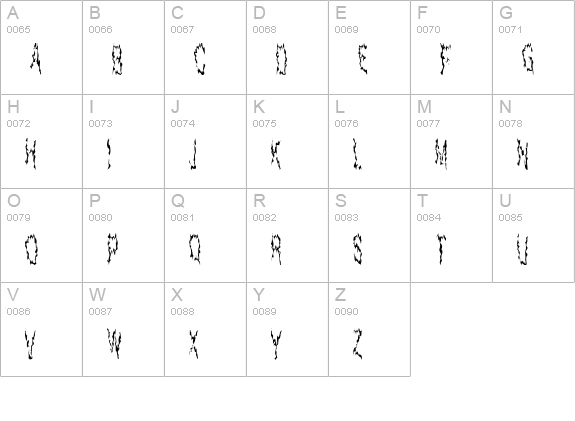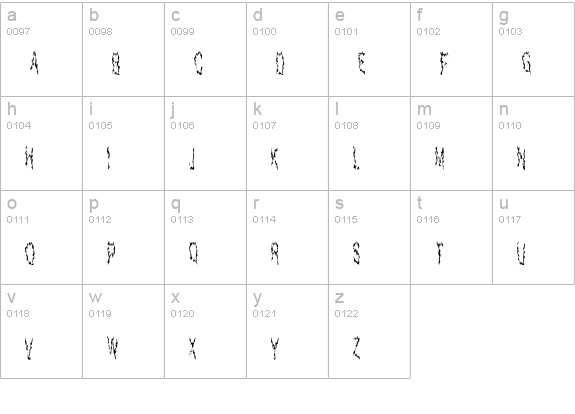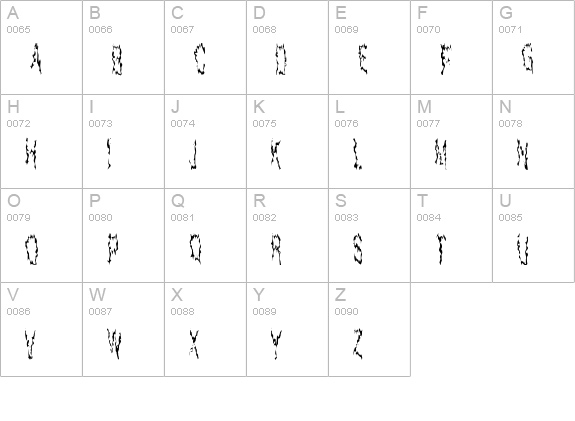
Introducing Real Horror Show, a spine-chilling font that will send shivers down your spine. Perfect for all things horror-related, this font is designed to give your projects a truly haunting and eerie feel. With its jagged edges and twisted letterforms, Real Horror Show unleashes a sense of terror that will captivate your audience. What sets Real Horror Show apart is not only its terrifying aesthetic, but also the fact that it is available for free. That's right, you can download this bone-chilling font without spending a dime. Simply head over to FontsMarket.com and start adding a touch of horror to your designs, posters, banners, and more. Whether you're working on a Halloween party invitation, a horror movie poster, or a spooky website, Real Horror Show will take your project to the next level. The way the letters come together in this font creates an atmosphere of fear and darkness, making it the perfect choice for any terrifying endeavor. Real Horror Show is meticulously crafted to evoke a sense of dread and unease. Its distinctive style is sure to leave a lasting impression on anyone who encounters it. The carefully designed details and intricate curves of each letter make this font a true work of art in the realm of horror typography. So why wait? Get your hands on Real Horror Show today and unleash the fear in your designs. Remember, this font is freely available to download at FontsMarket.com, so you have nothing to lose. Dare to venture into the world of horror with Real Horror Show and leave your audience trembling with fear.